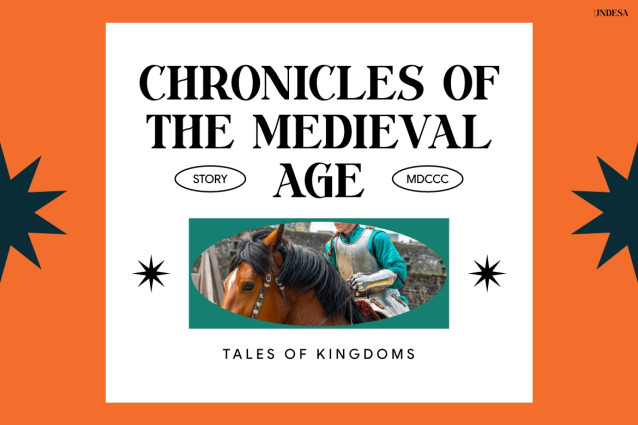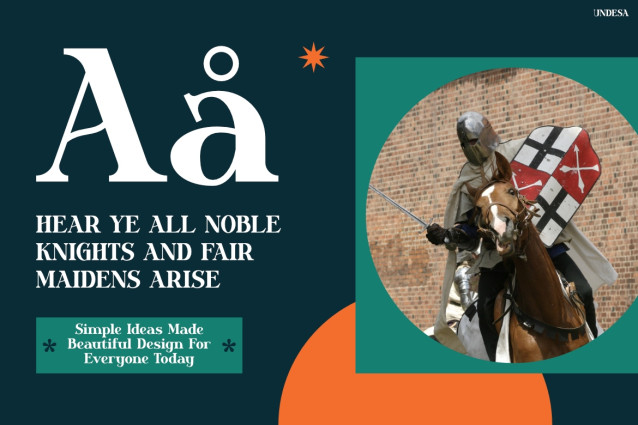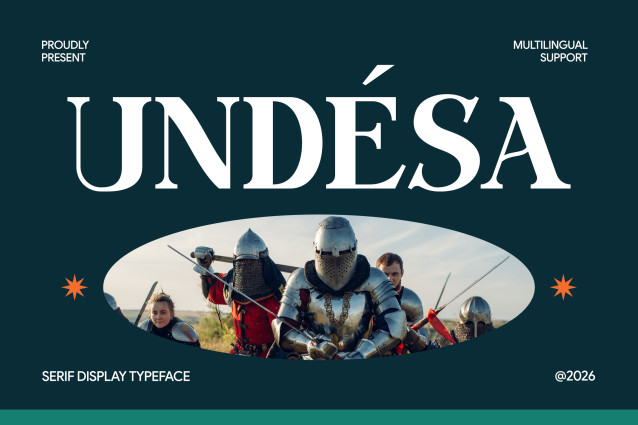
UNDESA – Medieval Retro Display Font
Retro Font UNDESA brings a bold medieval vibe with a stylish retro twist. First, its sharp serif details create a strong and elegant appearance. Meanwhile, the classic letterforms keep the design clear and impactful. Plus, its vintage structure adds instant personality. As a result, UNDESA is ready for eye-catching headlines, branding, and creative visuals.
Inspired by ancient castles, royal crests, brave knights, and medieval kingdoms, UNDESA creates a powerful historical mood. Moreover, its bold uppercase letters give every design a confident presence. In addition, the decorative details add character without making the typography feel too busy. At the same time, its balanced shapes make it easy to build striking compositions. Therefore, UNDESA works beautifully for posters, book covers, logos, labels, packaging, editorial designs, event graphics, and fantasy artwork.